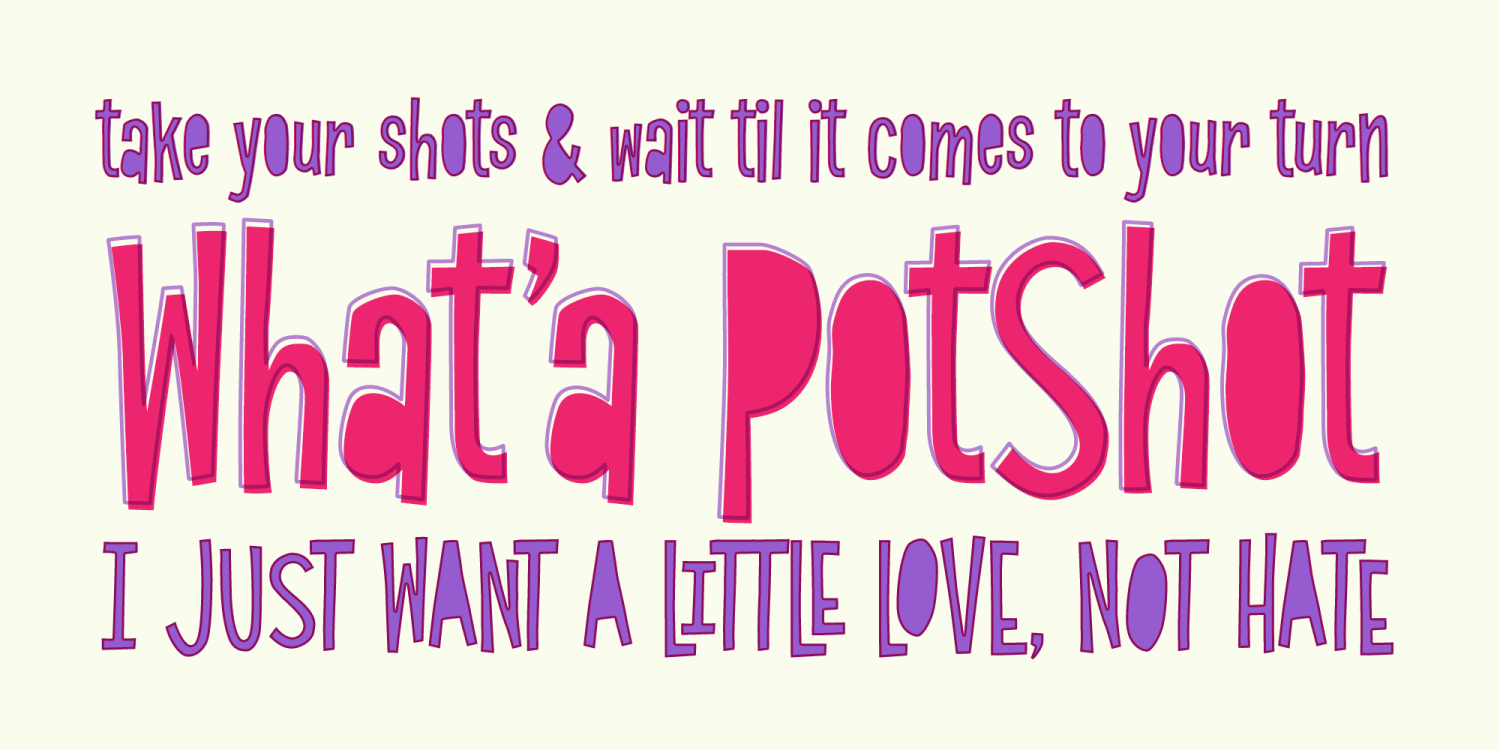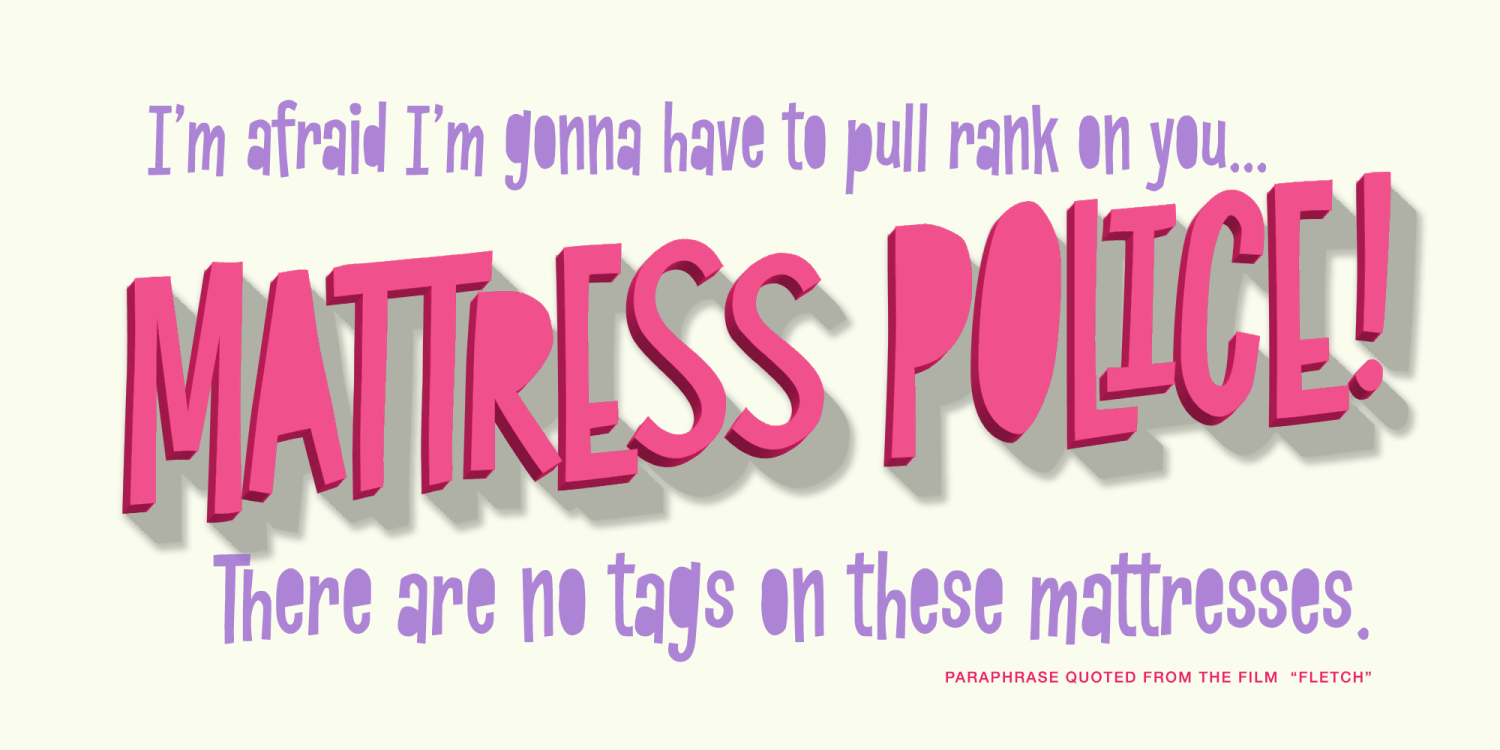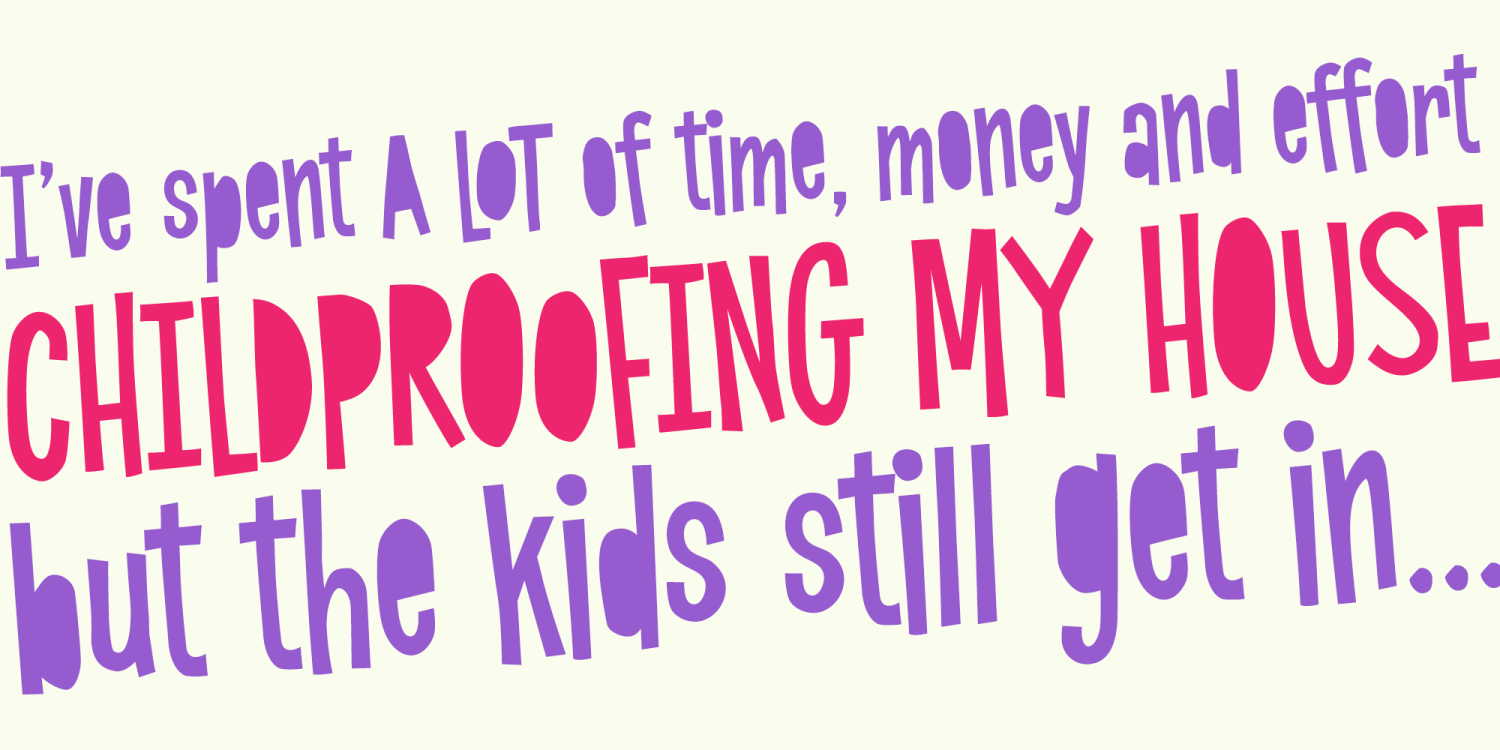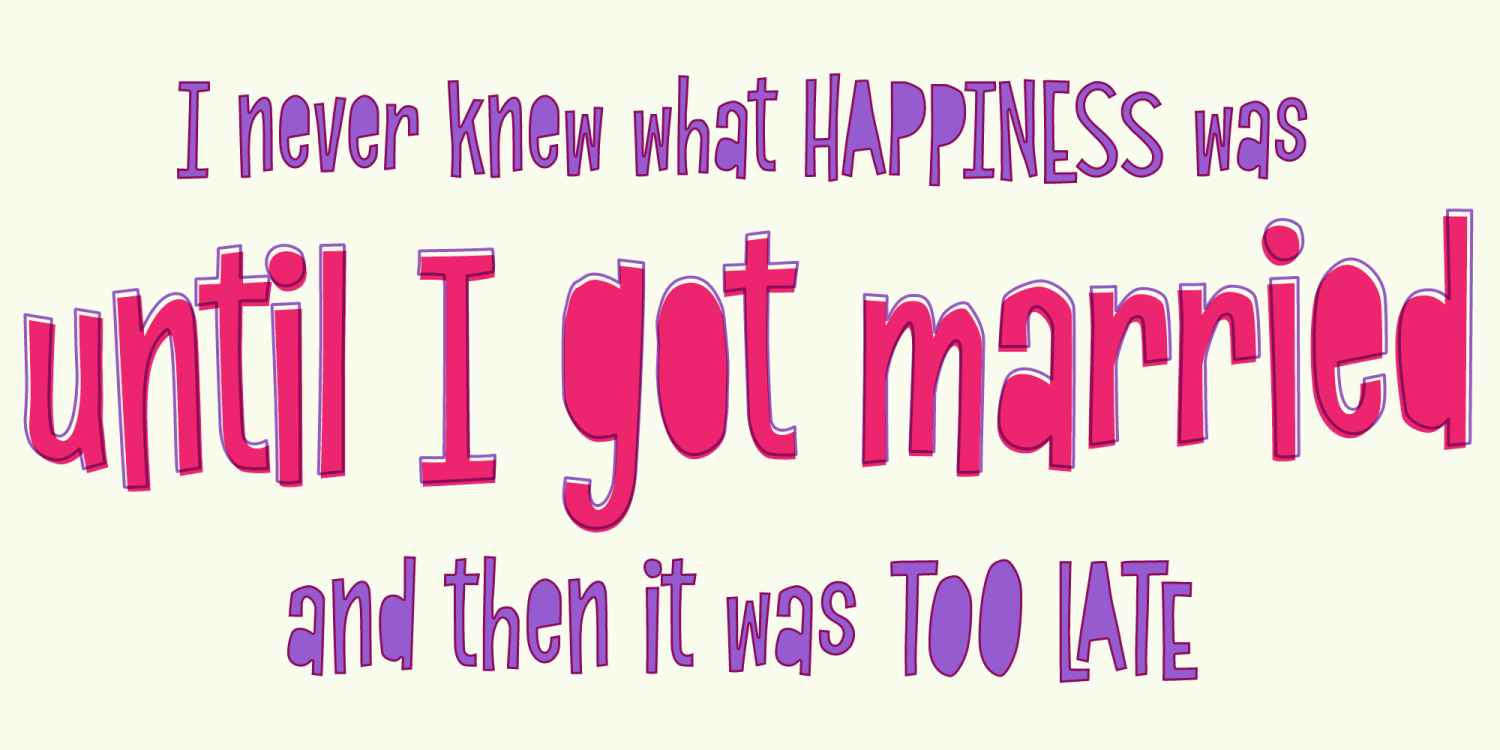
PotShot PB
Font Family by Pink Broccoli
Quirky and overly casual, PotShot was inspired by the lettering on on an odd vintage greeting card. Uniquely drawn with NO COUNTERS it draws attention while feeling familiar yet being totally unique. It was just begging to be fleshed out and made into a typeface that was as wild and carefree as the lettering inspiration.
So knock your designs out without counter knockouts, fill in the holes for your projects, and give them a little PotShot.
PS: You'll find that if you type in all capitals, a unique collection of ligatures will auto-swap in for some fun typesetting.